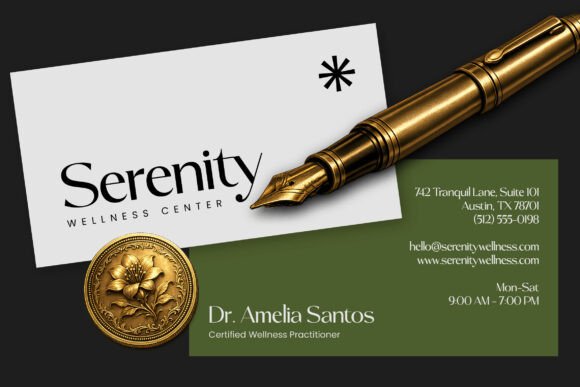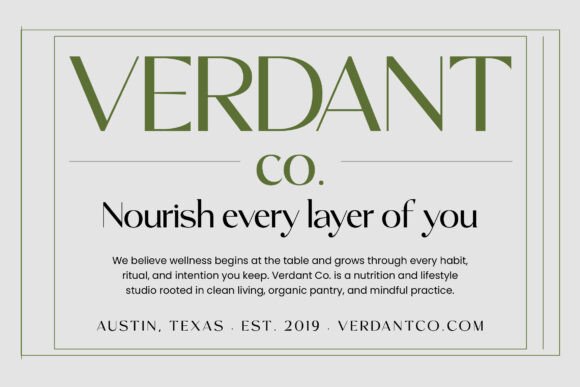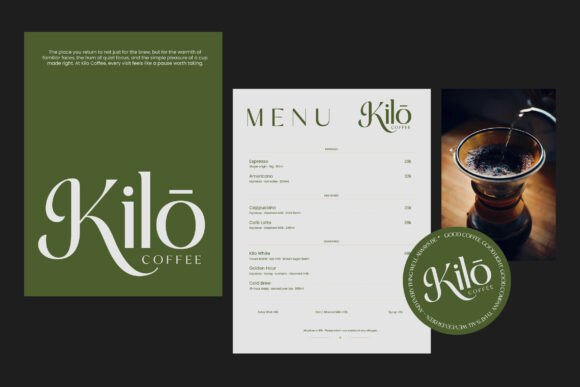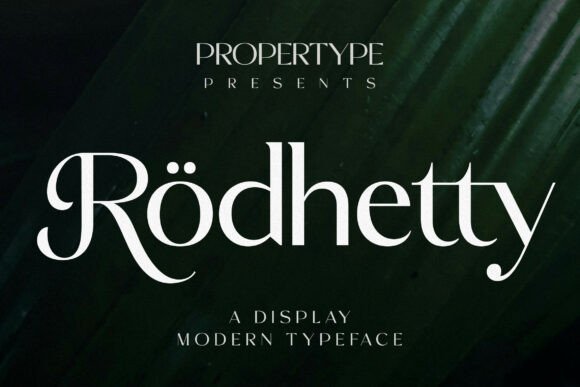
Introduction to Rodhetty Font
Rodhetty is an Elegant Display Font that features Contrast Lines and George curved terminals that give a sleek and elegant look to logos, holiday cards, wedding invitations, quotes, advertisements, and more.
Rodhetty has a full set of modern uppercase and lowercase letters, numbers, punctuation, and multilingual symbols Includes opentype features like ligatures, alternates, and more.